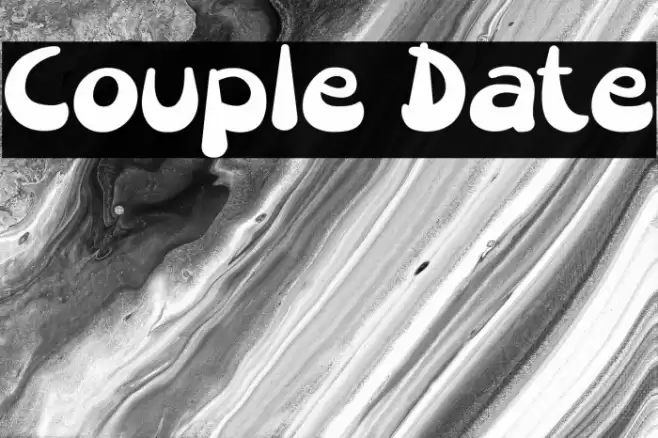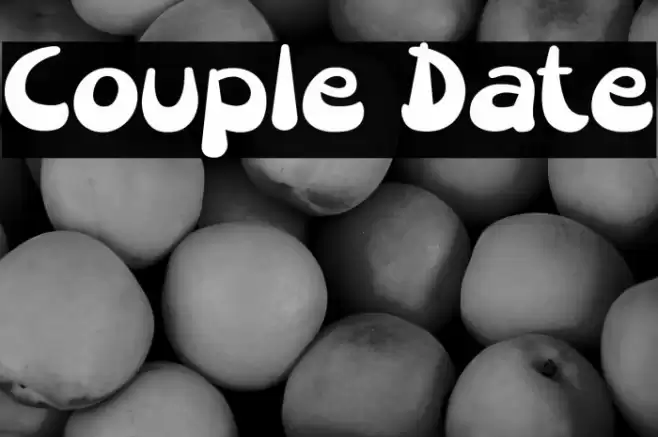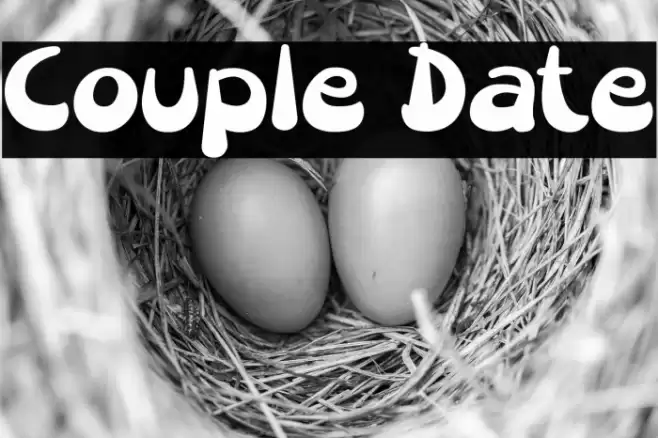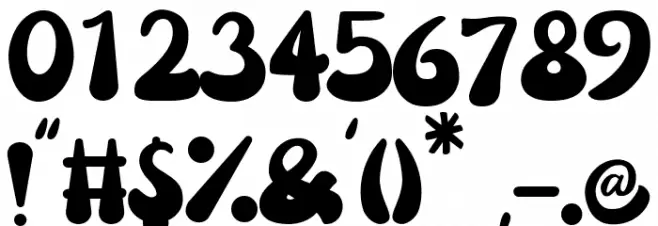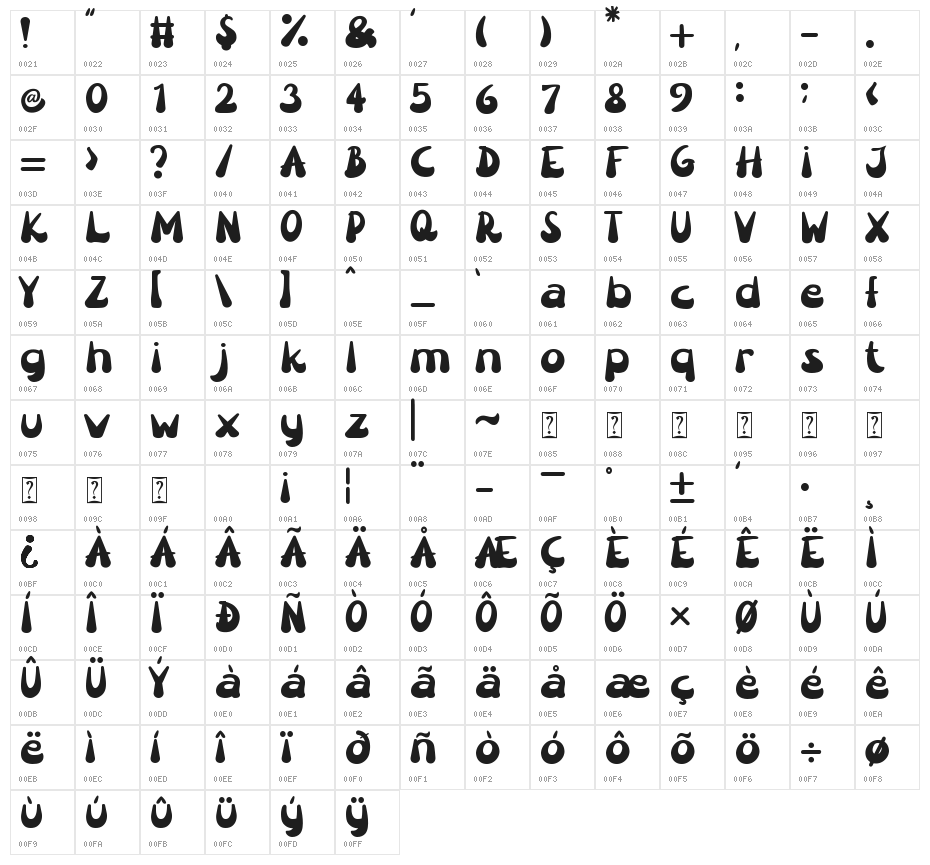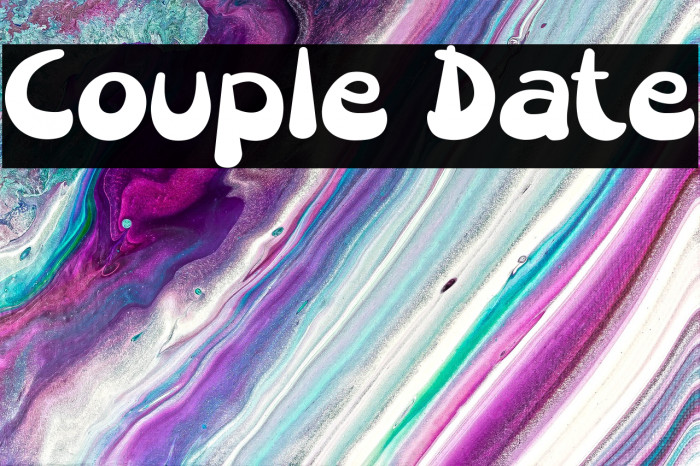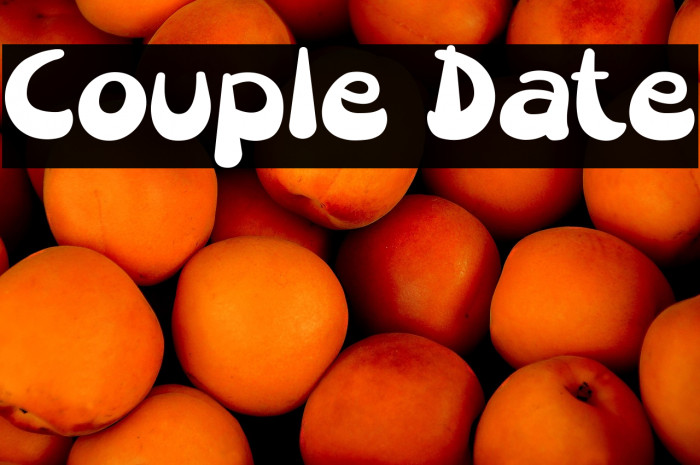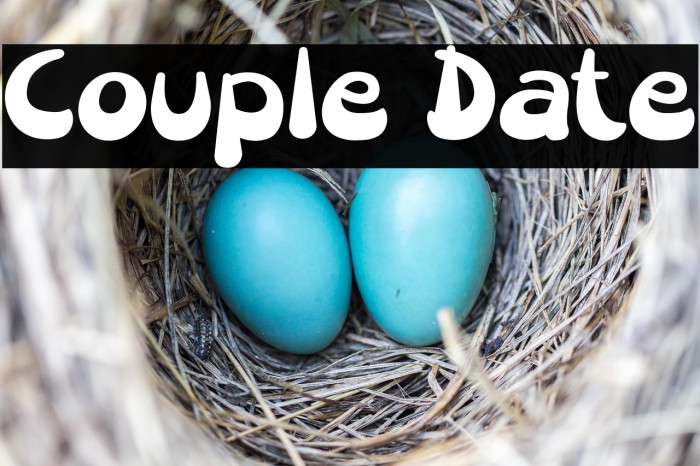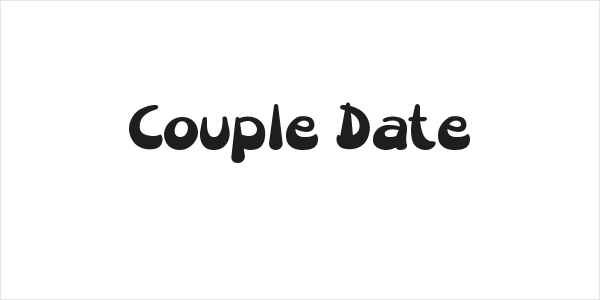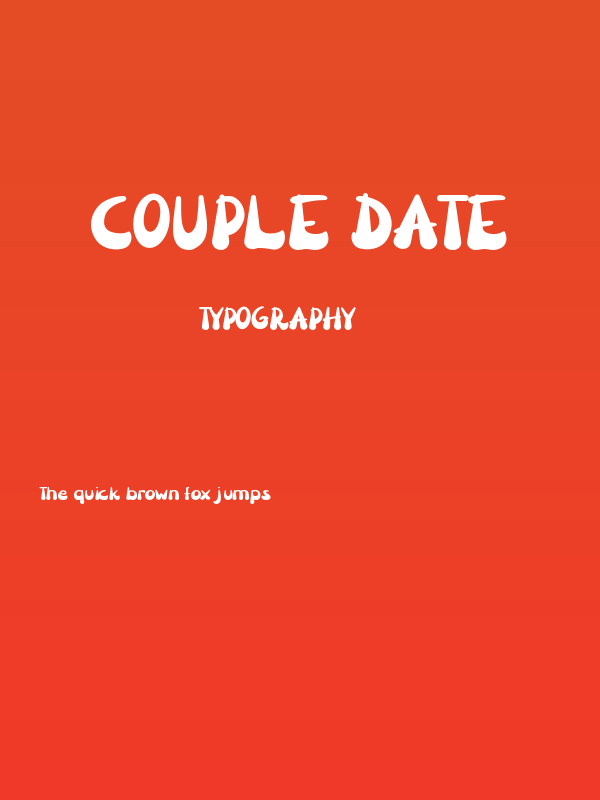
Couple Date Font
Couple Date Description
This playful and bold font features a whimsical, rounded style with a hand-drawn appearance. The letters are thick and slightly irregular, giving them a friendly and approachable feel. The uppercase and lowercase letters maintain a consistent style, with rounded edges and a slight tilt, adding to the casual and informal vibe. The numbers and special characters follow the same design principles, ensuring a cohesive look across all elements. This font's unique character makes it stand out, perfect for projects that require a touch of fun and creativity.
A playful, bold, and rounded font with a hand-drawn, whimsical style from Uncategorized fonts.
- Proposed Projects: Ideal for children's books, playful branding, casual invitations, and creative posters.
- Overall Style: Playful